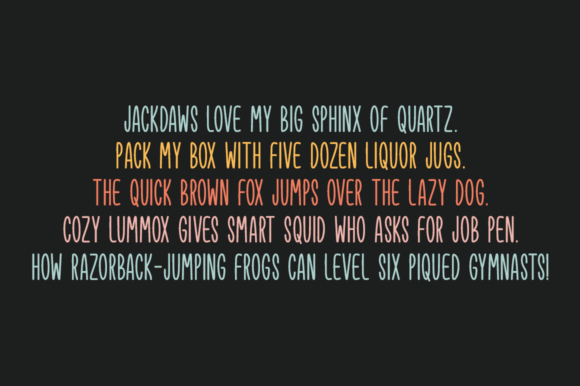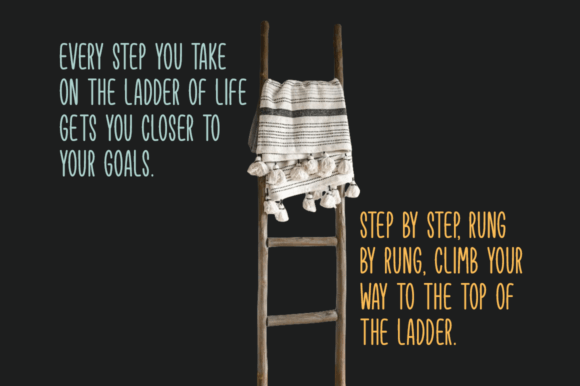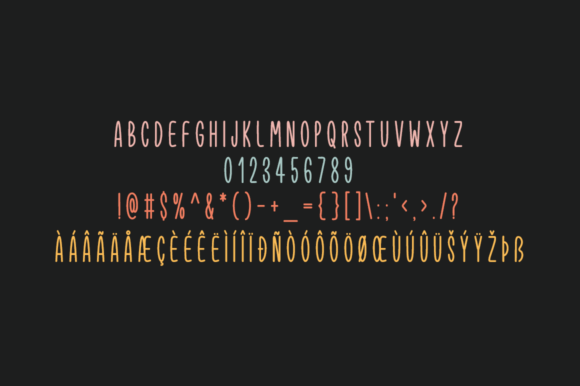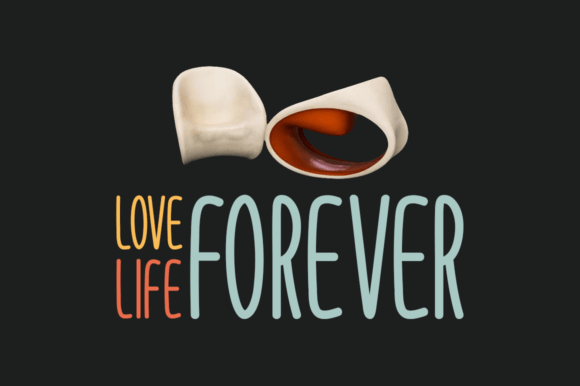
You’ve finally nailed down the concept, and your ideas are flowing like a river. You can almost see your project coming to life, but something’s missing – that one element that sets it apart from the rest. You know exactly what I’m talking about: the perfect font.
Enter the Intentness Font, a game-changing display font that’s sure to elevate your designs to the next level. With its versatility and unique charm, it can effortlessly complement a wide range of projects, from sleek modern designs to bold, eye-catching statements. Whether you’re a seasoned designer or just starting out, Intentness Font is an invaluable asset to have in your toolkit.
So why settle for anything less when you can make a statement with the Intentness Font? Its unmatched ability to add an extra layer of depth and sophistication to your designs makes it a must-have for any creative project.
Intentness Font Key Features
- Unique Characteristic: Intentness Font features a unique, hand-drawn style with subtle imperfections, giving it a personal and human touch that sets it apart from other sans-serif fonts.
- Font Family: Intentness Font is part of a larger font family, offering a range of weights and styles to suit different design needs, from light and delicate to bold and dramatic.
Intentness Font Review
As a designer, I was excited to dive into the Intentness Font and see what it had to offer. Overall, I found it to be a solid choice for digital projects.
- Clear and readable: The font is designed to be highly legible, making it perfect for body text and other long-form content.
- Clean lines: The Intentness Font features clean lines and a simple, sans-serif design that makes it easy to pair with other fonts.
- Good for digital use: The font is optimized for digital use, making it perfect for websites, apps, and other digital projects.
- Lack of personality: The font is a bit too generic and doesn’t have a strong personality or unique character.
- No bold or italic options: The font only comes in a standard weight, which can limit its use in certain situations.
- Not ideal for print use: While the font is great for digital use, it may not be the best choice for print projects due to its digital optimization.
The Intentness Font is a solid, no-frills choice for digital projects. While it may lack some personality and options, it’s a clear and readable font that’s perfect for body text and other long-form content. If you’re looking for a font that’s easy to pair with other fonts and works well in digital projects, the Intentness Font is a great choice.
Intentness Font: A Practical Application Guide
Tips for Getting the Most Out of Intentness Font
Use Intentness Font to create attention-grabbing headlines and titles.
Pair Intentness Font with a clean and simple background to make your text stand out.
Use Intentness Font for:
Headlines and titles
Product labels and packaging
Marketing materials and advertisements
Branding and logos
Alternatives to “Intentness Font” for Designers
Montserrat is a modern sans-serif font designed for digital use. It is highly legible in small sizes, making it ideal for body text, menus, and other UI elements. Montserrat is a popular alternative to Intentness Font due to its clean and minimalist aesthetic, which works well in a variety of design contexts.
Comparison: While both fonts share a similar sans-serif style, Montserrat is more geometric and modern, whereas Intentness Font has a more rounded and friendly feel.
Open Sans is a clean and highly legible sans-serif font that is widely used in digital design. It is suitable for body text, headings, and other UI elements, and is particularly effective in large blocks of text. Open Sans is a good alternative to Intentness Font for designers who want a more neutral and versatile font.
What is the recommended line spacing for the Intentness Font?
The recommended line spacing for the Intentness Font is 1.2-1.5 times the font size. This line spacing provides optimal readability and helps to create a clean and balanced design. However, you can adjust the line spacing according to your design requirements and the content’s complexity.